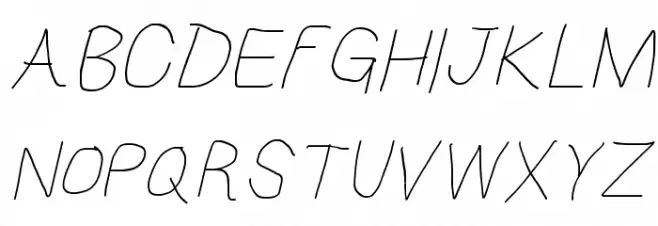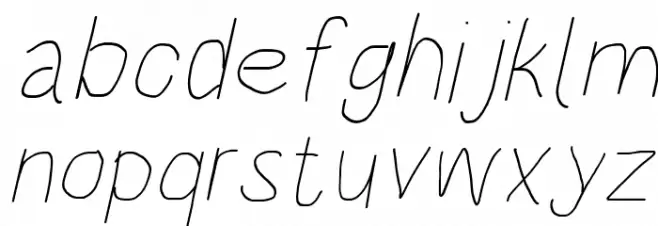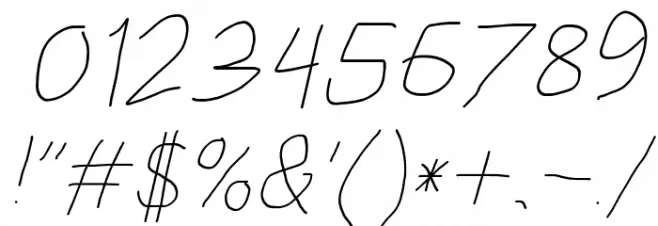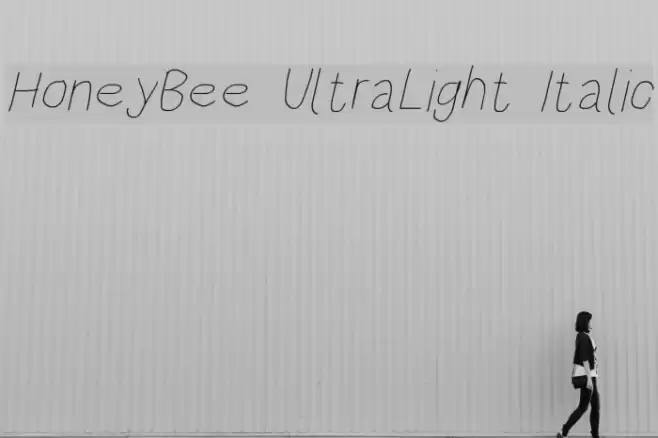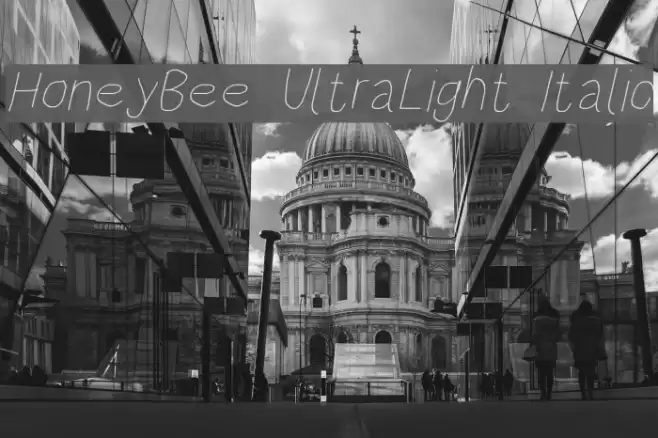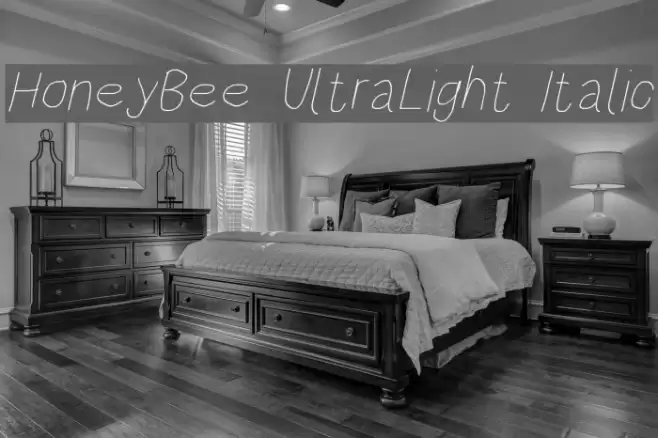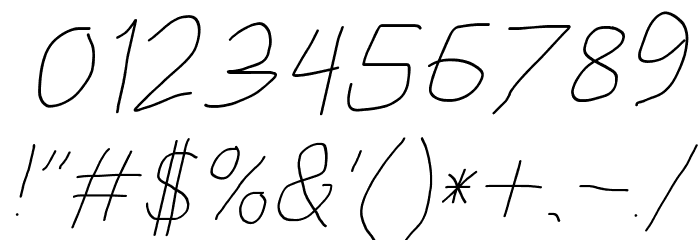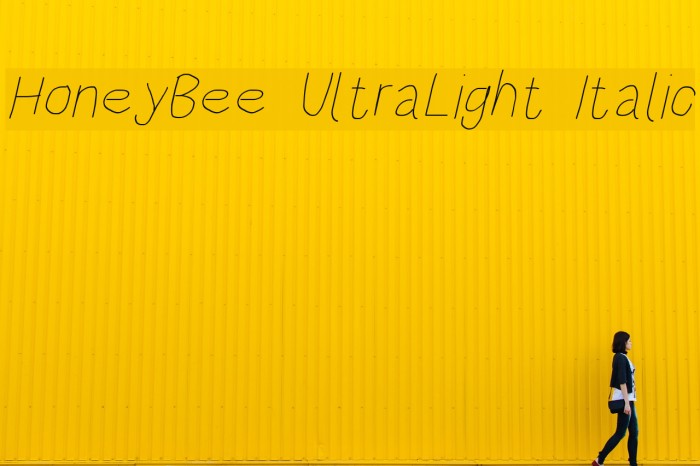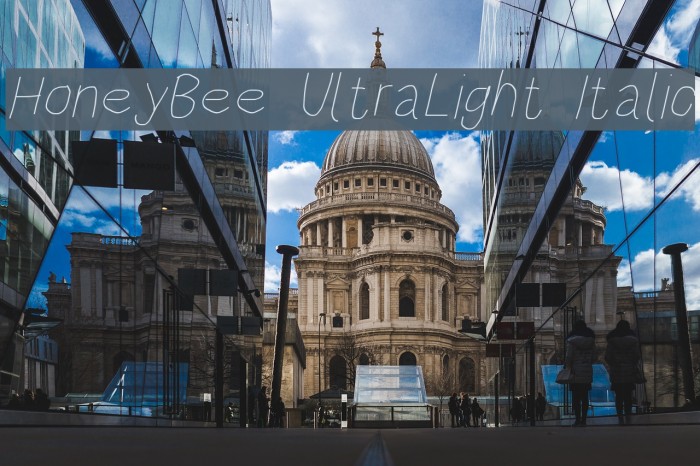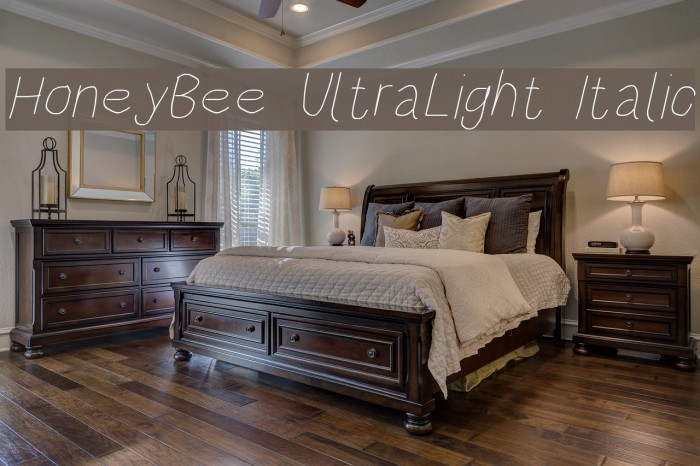
HoneyBee UltraLight Italic
This font features a delicate and airy design, characterized by its ultra-light weight and italicized form. The letters are crafted with a smooth, flowing style that mimics a handwritten script, giving it a personal and approachable feel. The strokes are thin and consistent, providing a sense of elegance and sophistication. The characters are slightly slanted, enhancing the italic effect and adding a dynamic touch to the overall appearance. The spacing between characters is normal, ensuring readability while maintaining the font's graceful aesthetic.
An ultra-light, italicized handwritten script with a delicate and elegant style.
- Proposed Projects: Ideal for wedding invitations, personal letters, greeting cards, and branding projects that require a touch of elegance and sophistication.
- Weight: Light
- Overall Style: Elegant
- Use Case: Invitations, Personal letters, Greeting cards